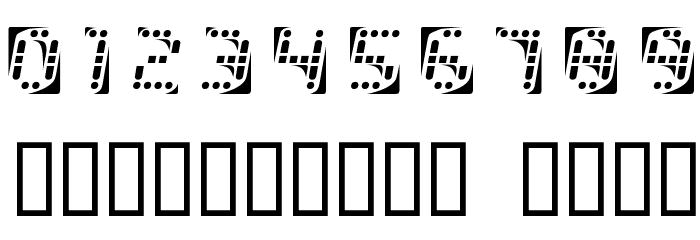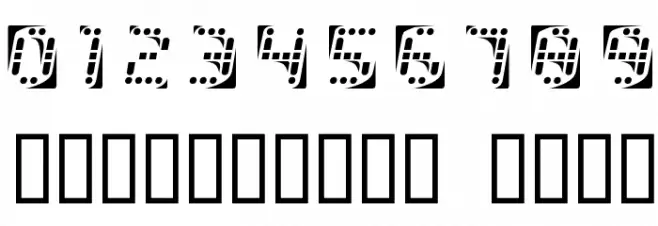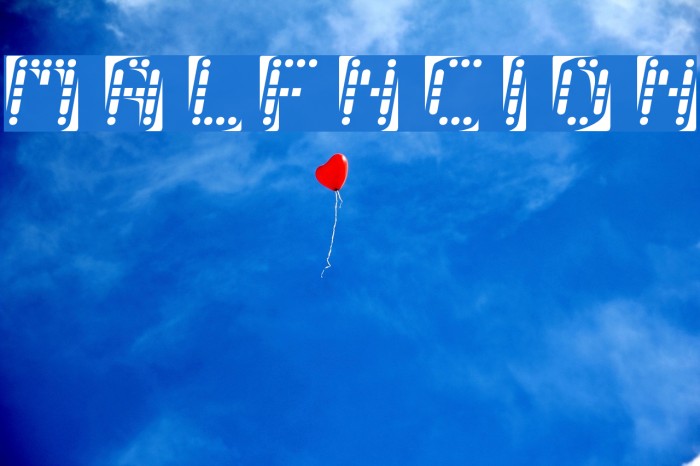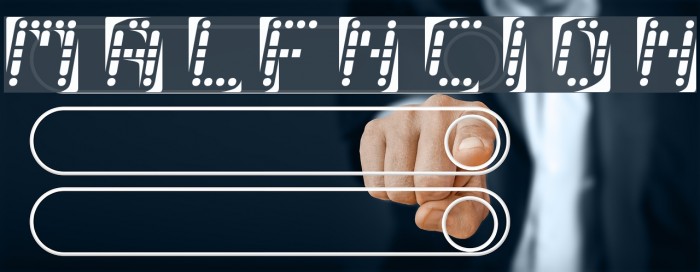
malfunction Font
malfunction Description
This font features a unique and playful design with a dotted pattern that creates a sense of movement and energy. Each character is constructed with a series of dots that form the outlines, giving it a digital or pixelated appearance. The uppercase and lowercase letters maintain a consistent style, while the numbers and special characters follow the same dotted motif. The overall look is modern and eye-catching, making it suitable for creative and tech-oriented projects. The font's distinct style makes it stand out, ideal for designs that require a futuristic or digital aesthetic.
A modern, dotted font with a playful, digital appearance from Decorative fonts.
- Proposed Projects: Ideal for digital art, tech branding, video game design, and futuristic-themed projects.